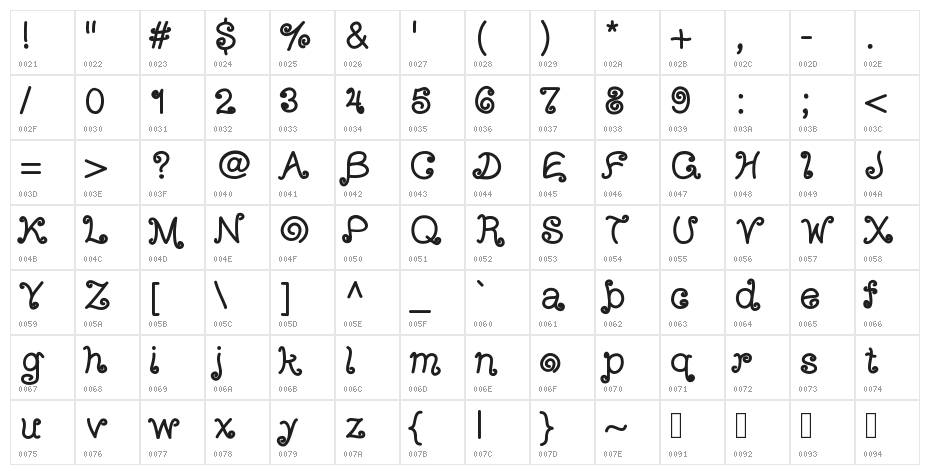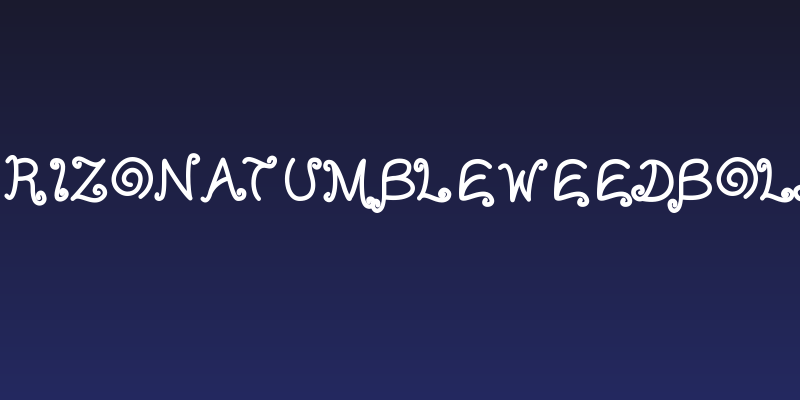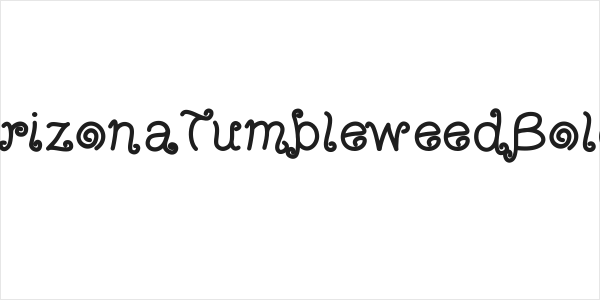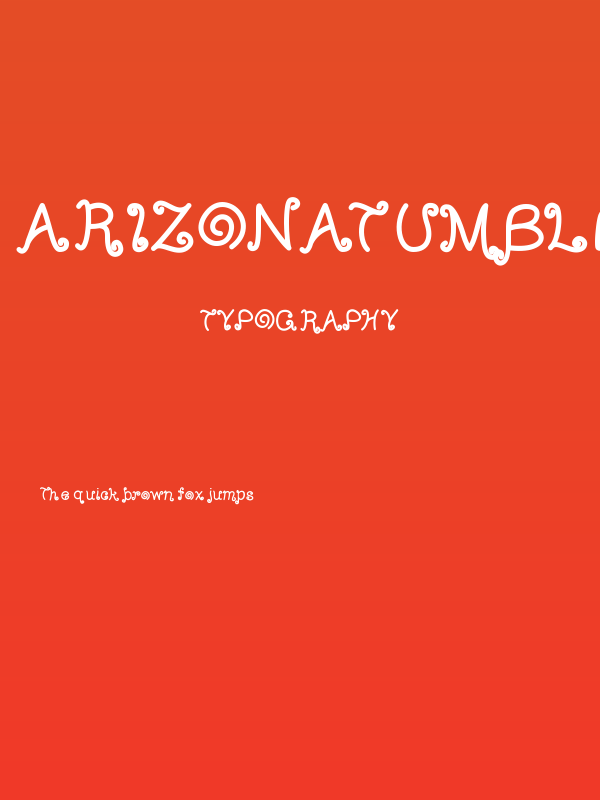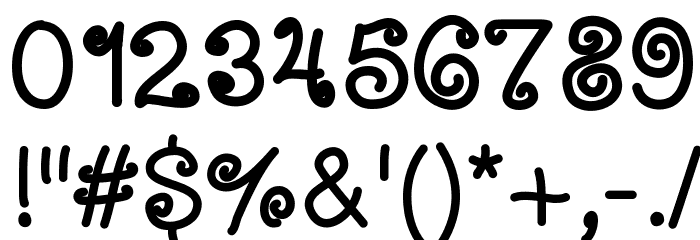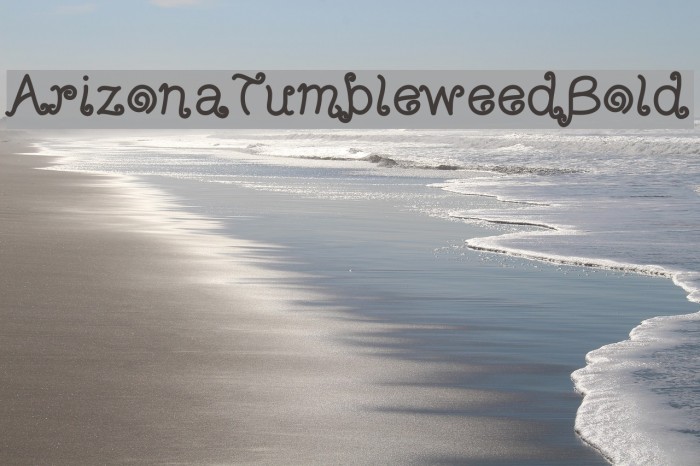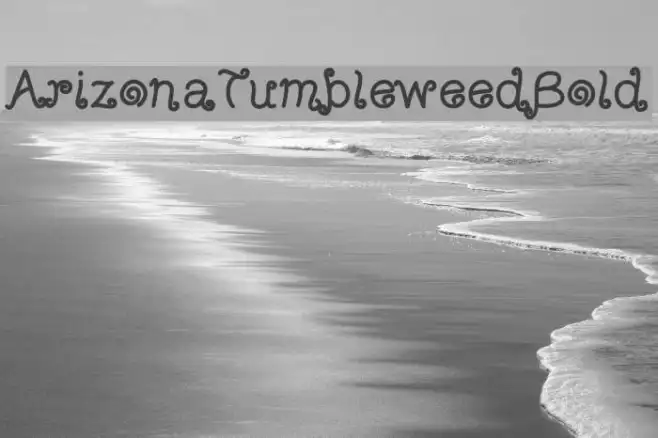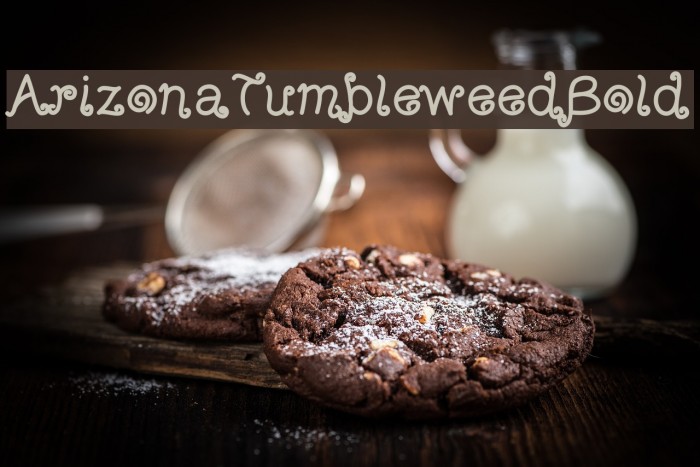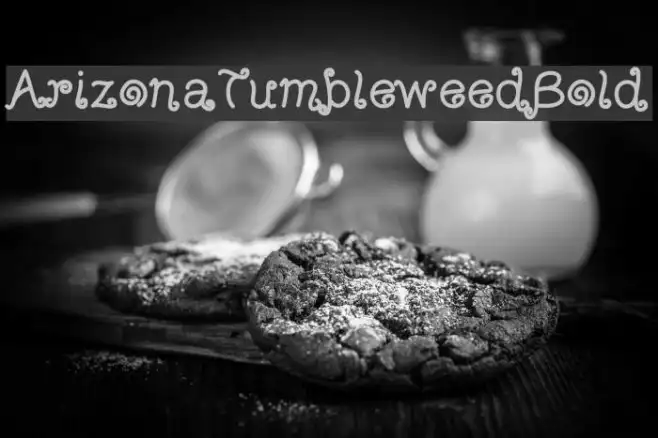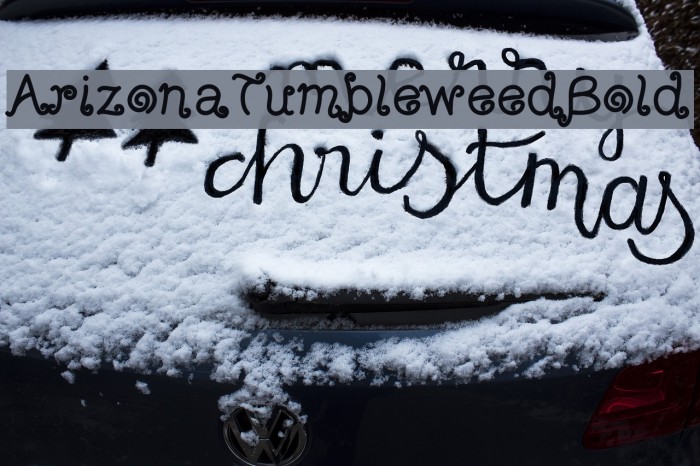
ArizonaTumbleweedBold Font
ArizonaTumbleweedBold Description
This font features a whimsical and decorative style, characterized by its playful curls and swirls on each letter. The bold strokes and unique embellishments give it a lively and eye-catching appearance. Each character is distinct, with a consistent use of rounded, swirling terminals that add a sense of movement and flair. The font maintains a uniform weight throughout, ensuring readability while still offering a touch of artistic flair. Its boldness and decorative elements make it suitable for creative and expressive design projects.
| Proposed Projects | Ideal for children's book covers, playful branding, event invitations, and creative posters. |